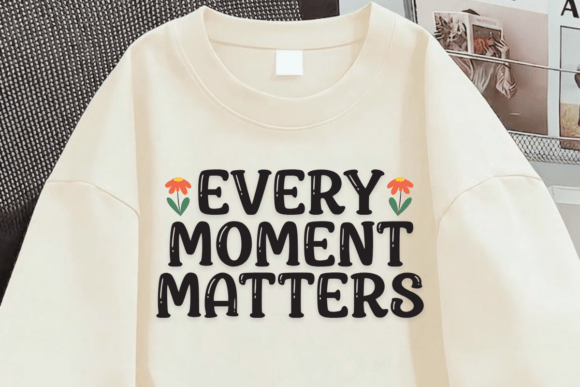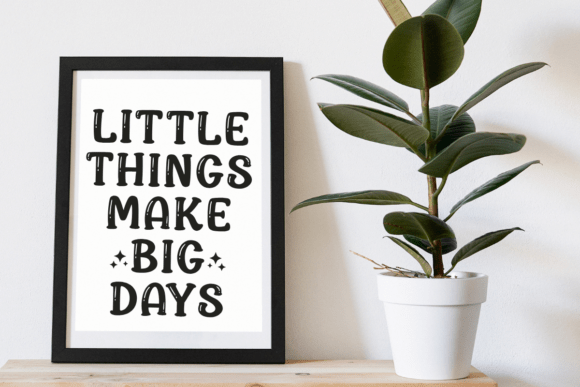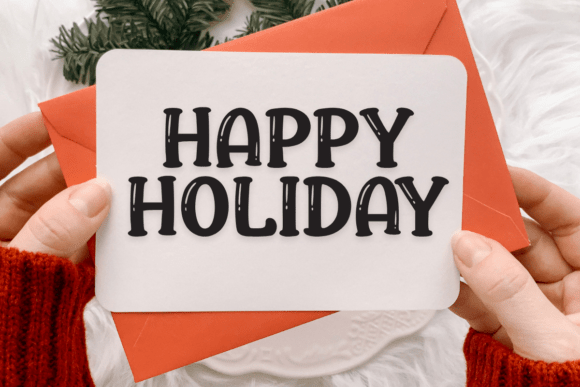
Introduction to Mama Canvas Font
Mama Canvas is a charming and playful bubble display font designed specifically for the crafting community.
With its soft, rounded edges and “puffy” aesthetic, this font brings a sense of warmth and fun to any DIY project It features a unique glossy highlight effect that gives your letters a 3D, sticker-like appearance instantly.
Mama Canvas Font offers exceptional quality and versatility, making it a valuable addition to your design toolkit. Whether you’re creating for personal projects or commercial use, Mama Canvas Font delivers professional results.